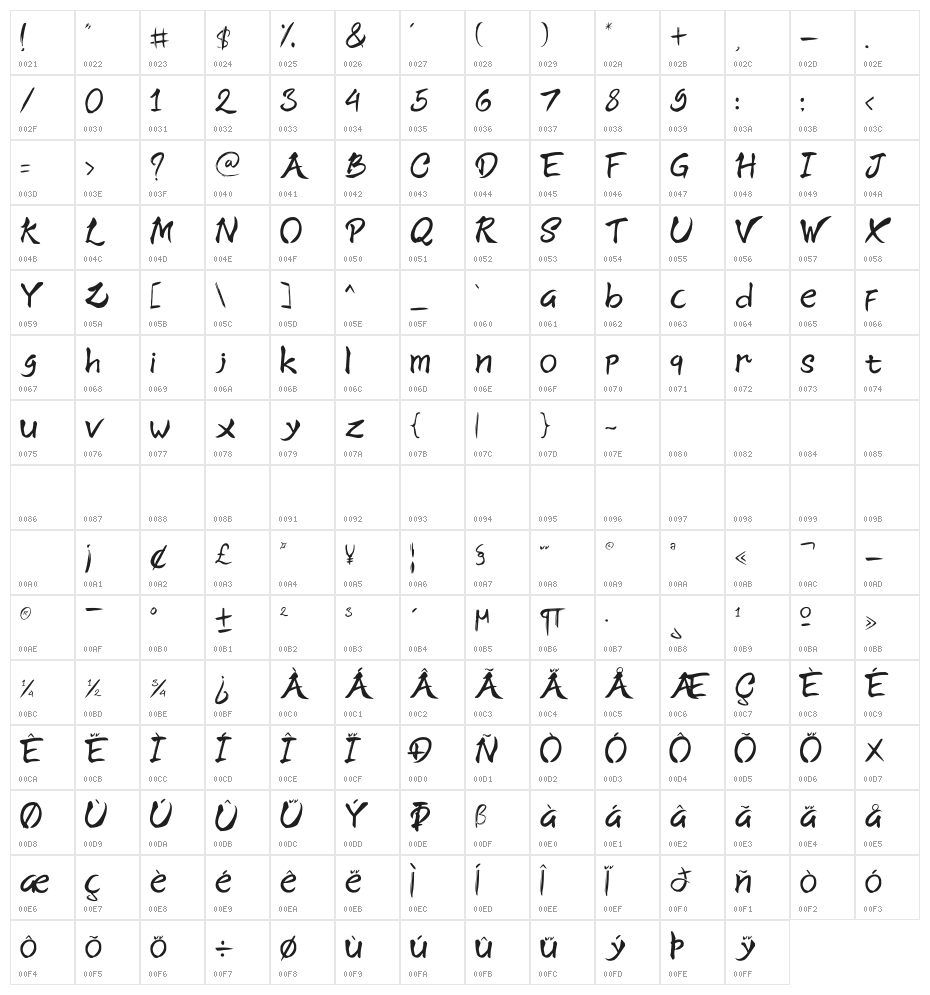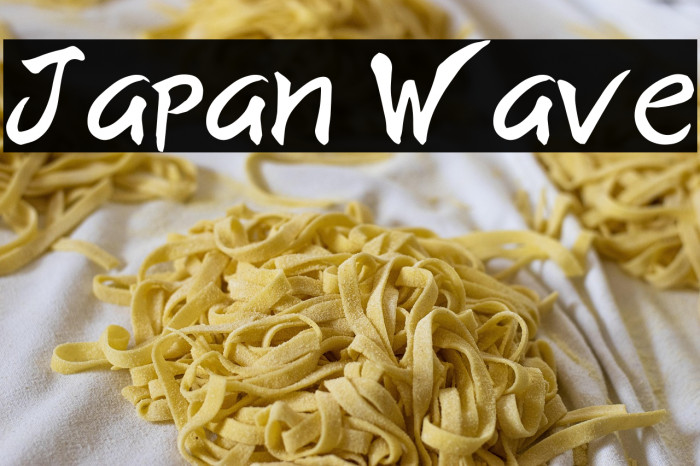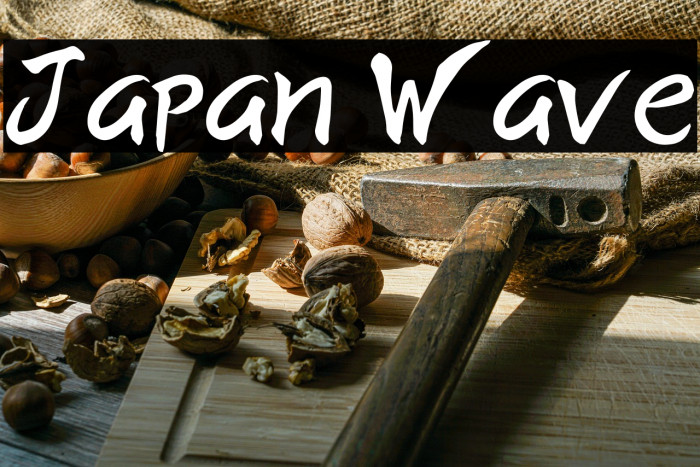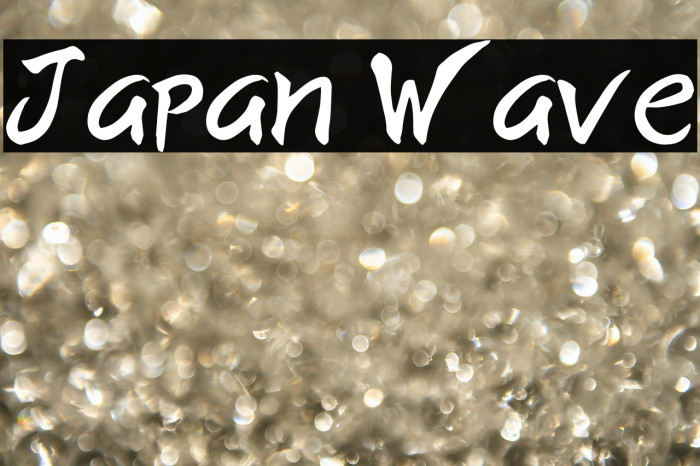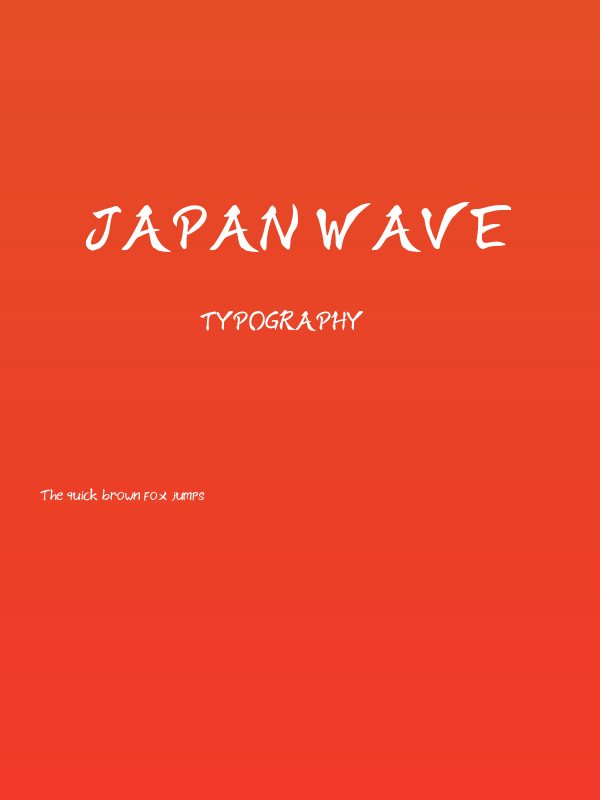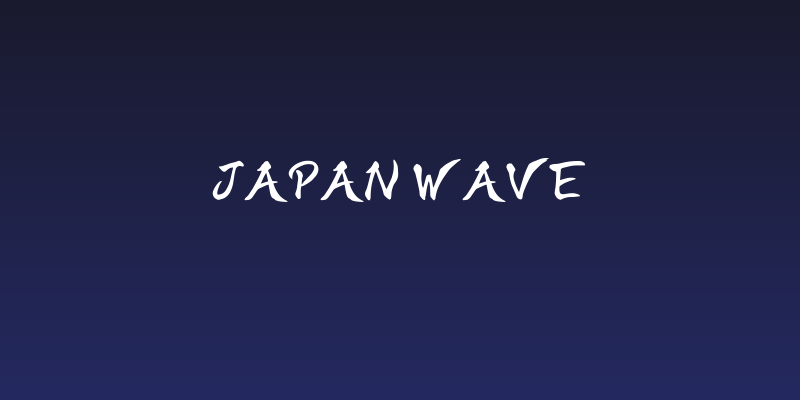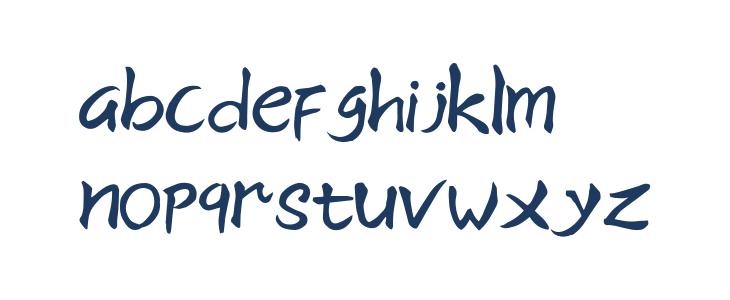
Japan Wave Font
Japan Wave Description
This font features a dynamic and fluid script style, reminiscent of traditional calligraphy with a modern twist. The strokes are bold and expressive, with a natural flow that suggests movement and energy. Each character is uniquely crafted, maintaining a consistent rhythm and balance throughout the alphabet. The uppercase letters are slightly more angular, providing a striking contrast to the more rounded and flowing lowercase letters. Numbers and special characters follow the same stylistic cues, ensuring a cohesive look across all elements. The overall appearance is both artistic and legible, making it suitable for a variety of creative applications.